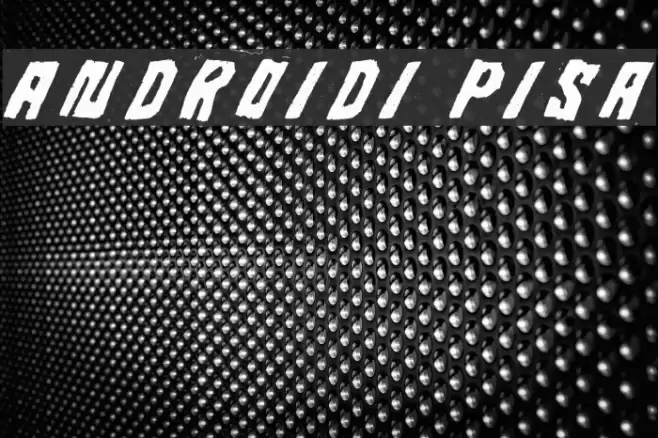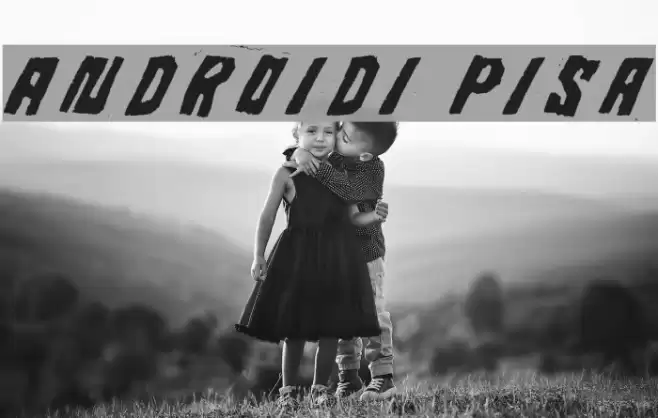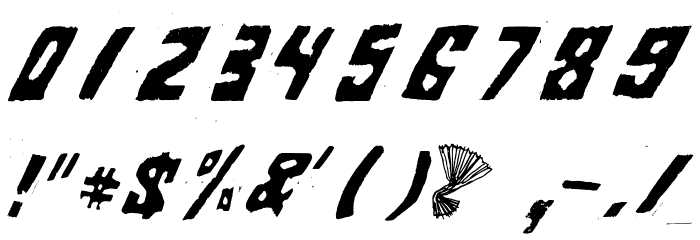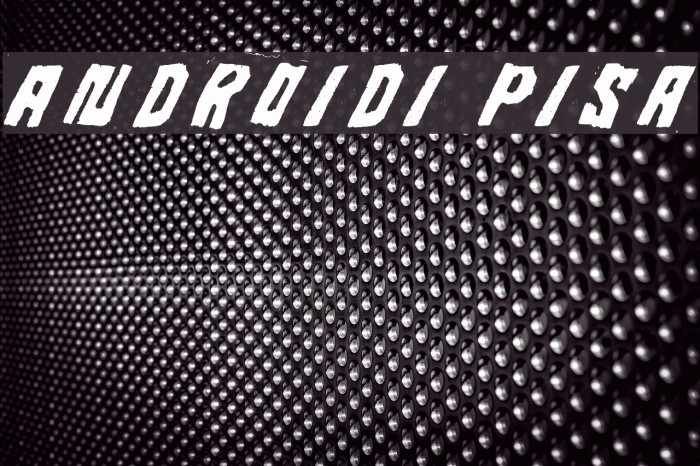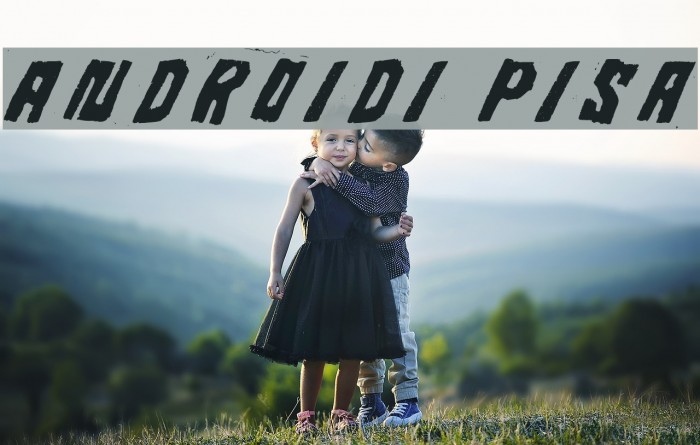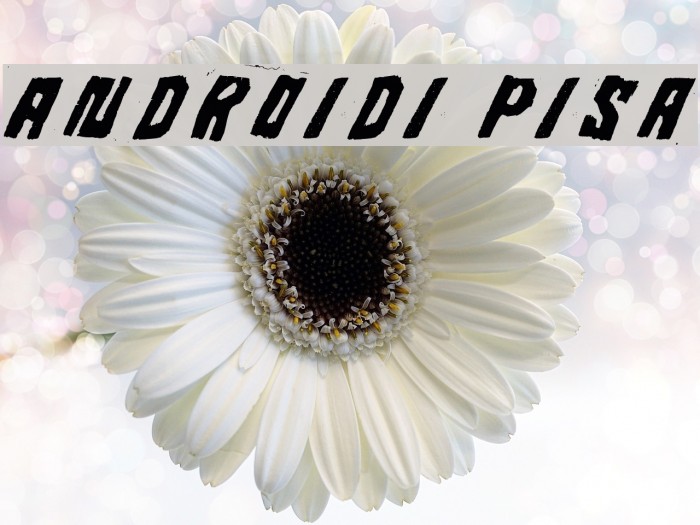
Androidi Pisa Font
Androidi Pisa Description
This font features a bold and dynamic style with a distinct slant, giving it a sense of motion and energy. The characters are heavily stylized with sharp angles and a blocky appearance, creating a futuristic and industrial feel. The uppercase and lowercase letters maintain a consistent design, while the numbers and special characters complement the overall aesthetic. The font's unique design makes it stand out, suitable for projects that require a strong visual impact.
A bold, slanted font with a futuristic and industrial style from Distorted Eroded fonts.
- Proposed Projects: Ideal for sci-fi themed designs, video game titles, posters, and branding that requires a modern and edgy look.
- Overall Style: Futuristic, Industrial